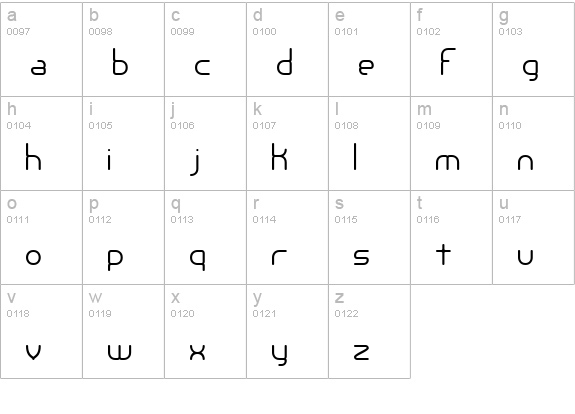
Nanosecond Thin BRK Font Details
Nanosecond Thin BRK is a delicate, low-contrast variant in the Nanosecond typeface family \xE2\x80\x94 well suited to fashion editorial, minimal branding, and high-contrast display.
Nanosecond Thin BRK font is a sleek and modern typeface that exudes sophistication and elegance. Its ultra-thin design makes it perfect for creating a minimalist and contemporary look in your designs. The clean lines and sharp angles of this font will give your projects a polished and refined appearance. What makes Nanosecond Thin BRK font even more appealing is that it is completely free to download at FontsMarket.com. This means you can easily access this stylish font and use it in your personal or commercial projects without any cost. Whether you're designing a website, creating a logo, or working on a branding project, Nanosecond Thin BRK font is a versatile and stylish option that will elevate your designs to the next level. Download it today and add a touch of modern sophistication to your projects.